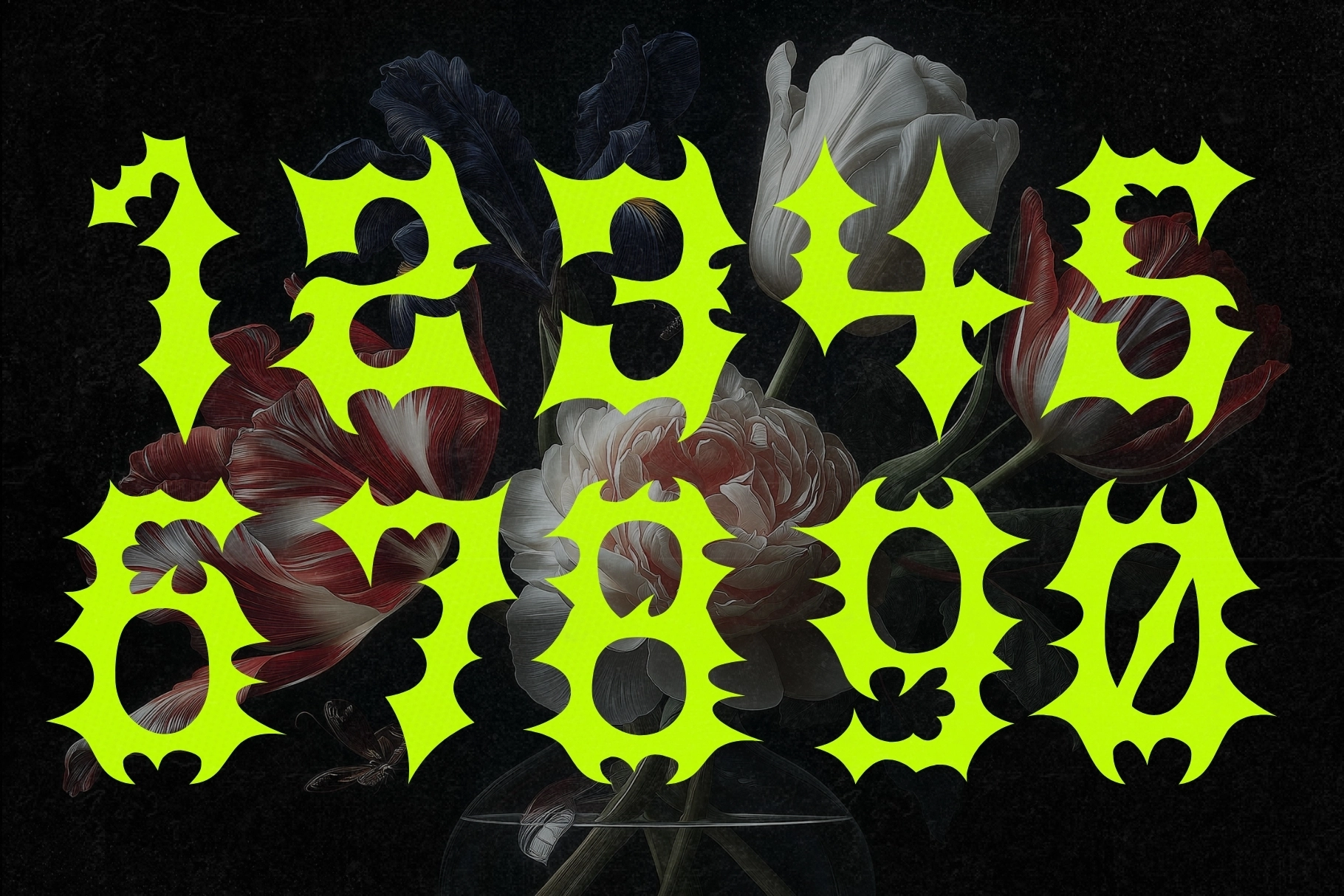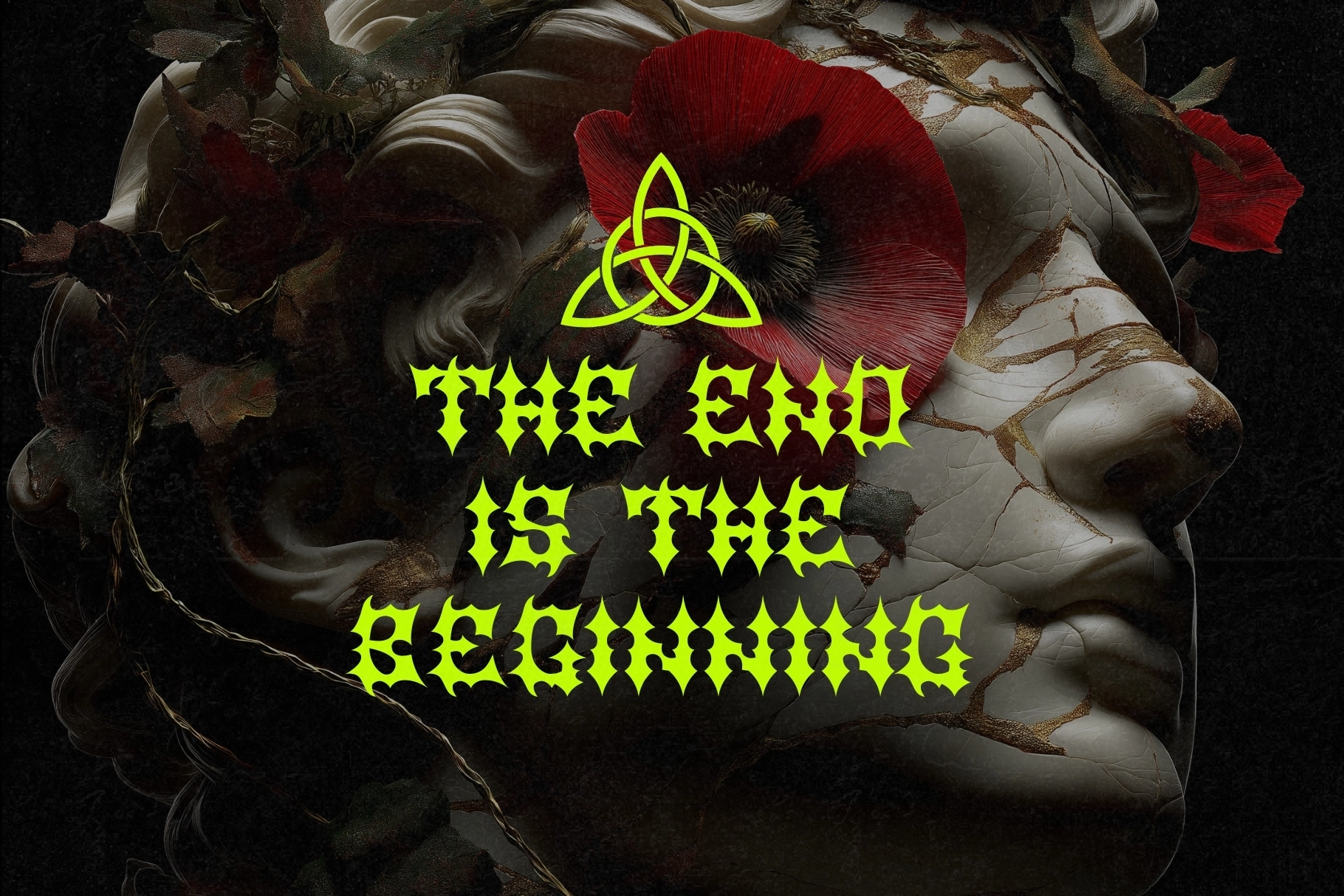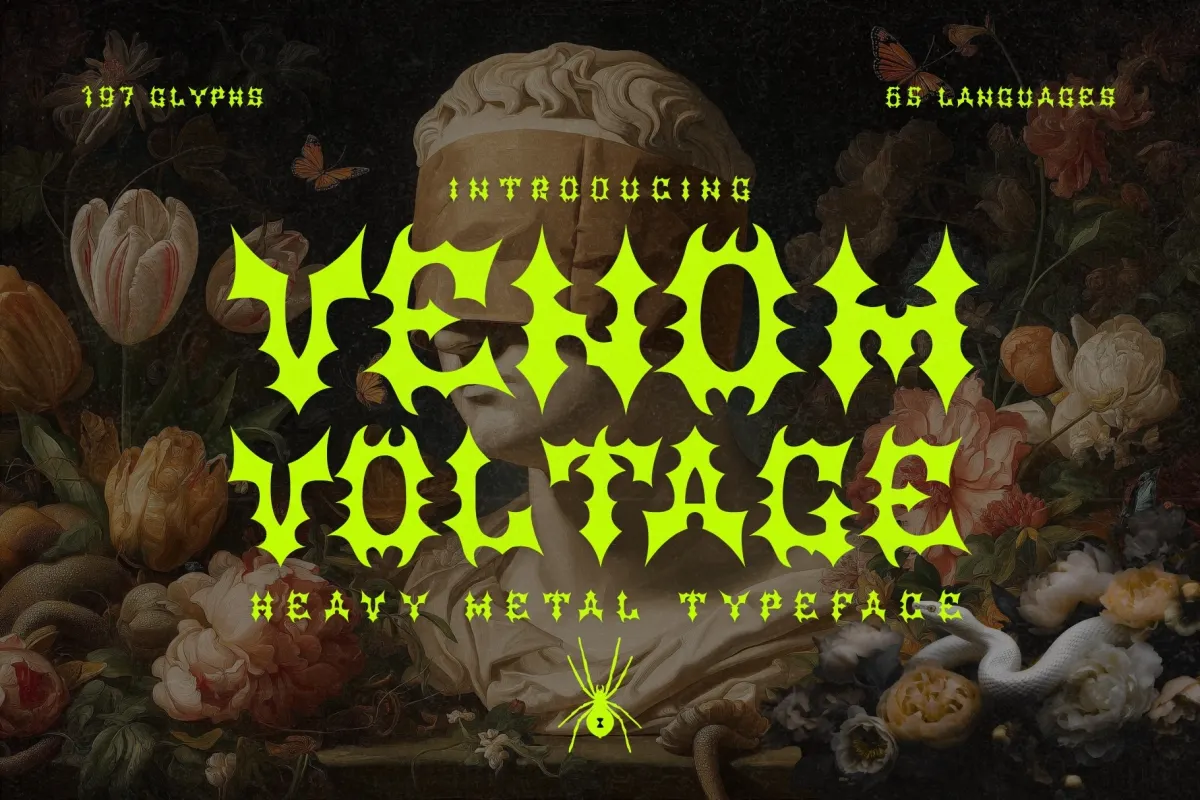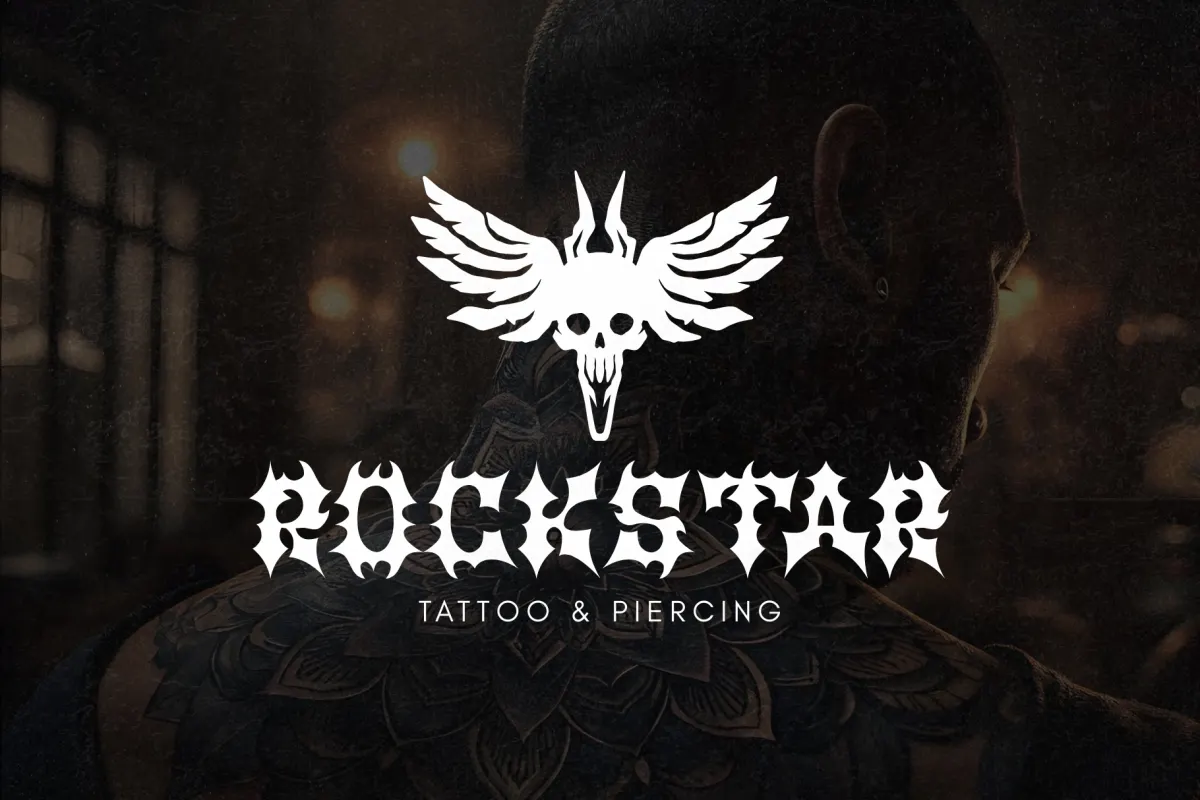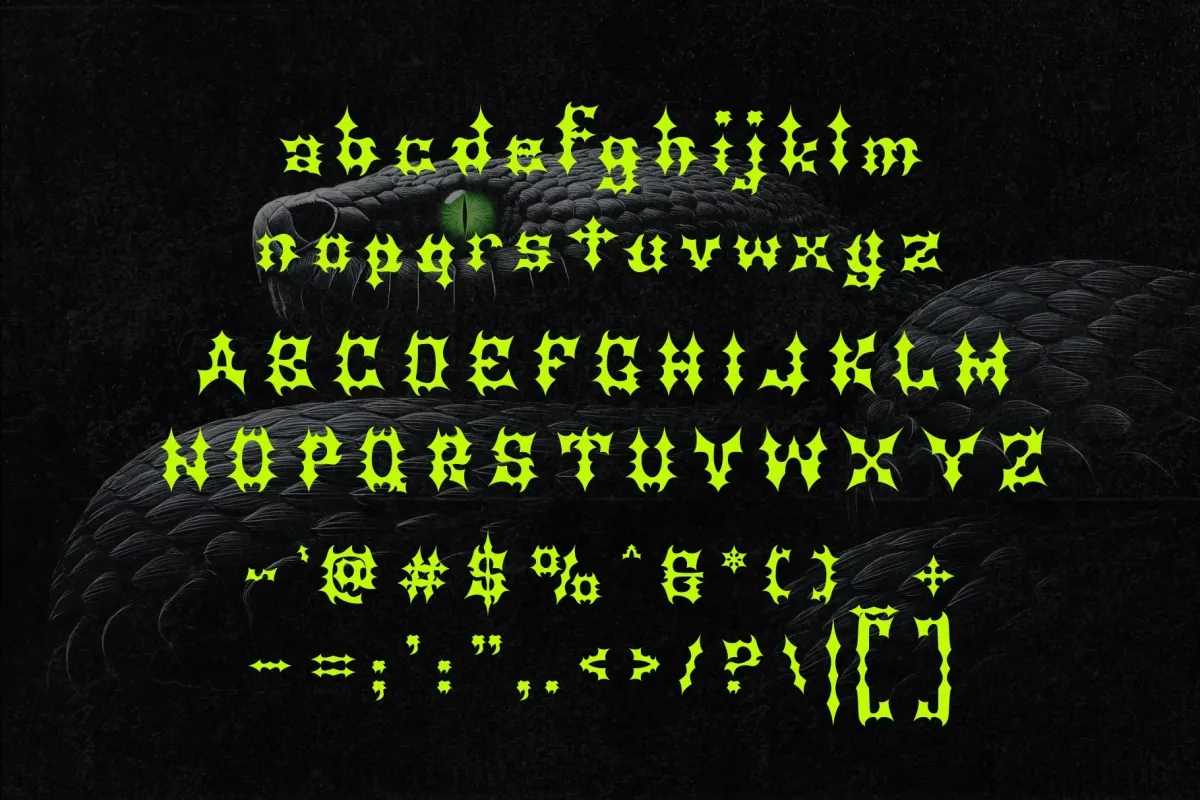
Venom Voltage - Heavy Metal Typeface
Venom Voltage – Heavy Metal Typeface is a fierce display font inspired by the aggressive energy of heavy metal music and underground graphic culture. Built with razor-sharp angles, distorted strokes, and electrified forms, this typeface delivers an intense visual impact that feels loud, rebellious, and unapologetically bold. Each letter appears fractured and charged with energy, creating typography that feels raw, chaotic, and alive.
Perfect for band logos, album covers, posters, merchandise, gaming visuals, and dark-themed branding, Venom Voltage pushes typography toward the edge of distortion while keeping a striking visual identity. Its aggressive shapes and high-voltage attitude make it ideal for designs that demand power, intensity, and an unforgettable heavy aesthetic.
- Uppercase Characters
- Heavy Metal Inspired Letterforms
- Unique Display Glyph Set